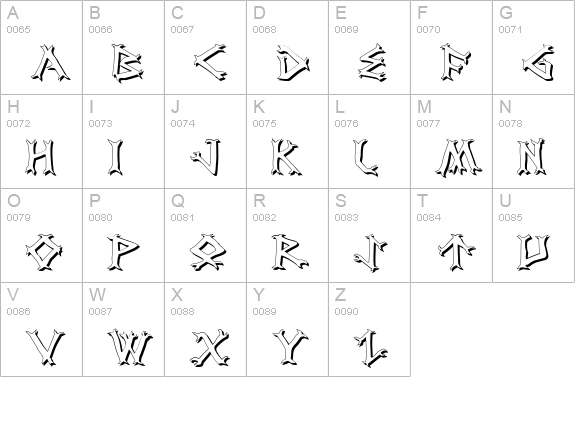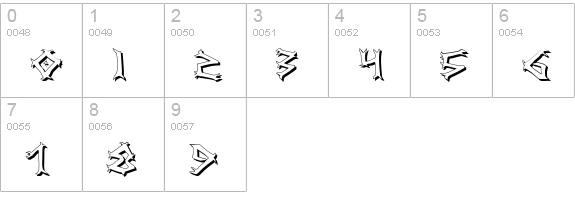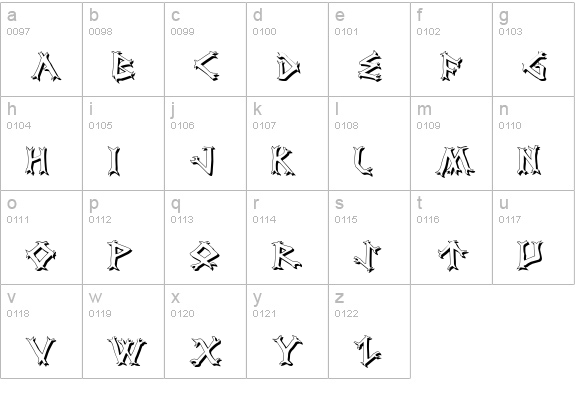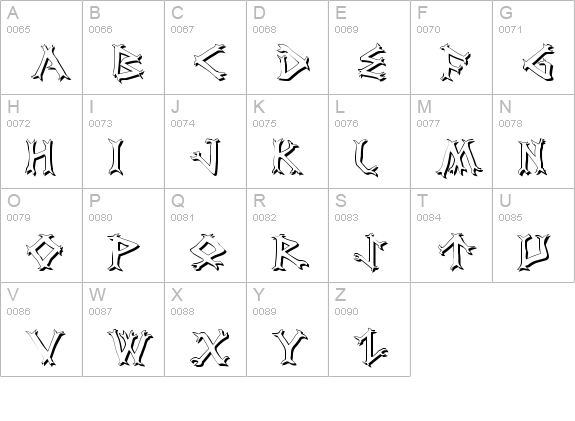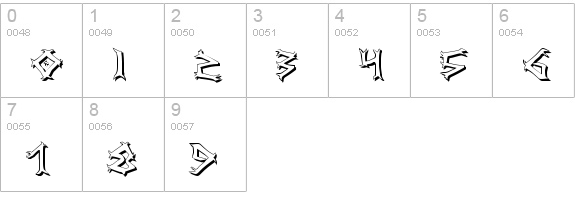
Dragon Order Shadow Font Details
Introducing Dragon Order Shadow font, a striking and mysterious typeface that exudes power and sophistication. This unique font features intricate shadow details that add depth and drama to any design project. Perfect for adding a touch of mystique to logos, posters, and branding materials, Dragon Order Shadow font is sure to make a bold statement. And the best part? Dragon Order Shadow font is available for free download at FontsMarket.com! Don't miss this opportunity to enhance your designs with this captivating and versatile font. Download it today and unleash the power of Dragon Order Shadow in your creative projects.